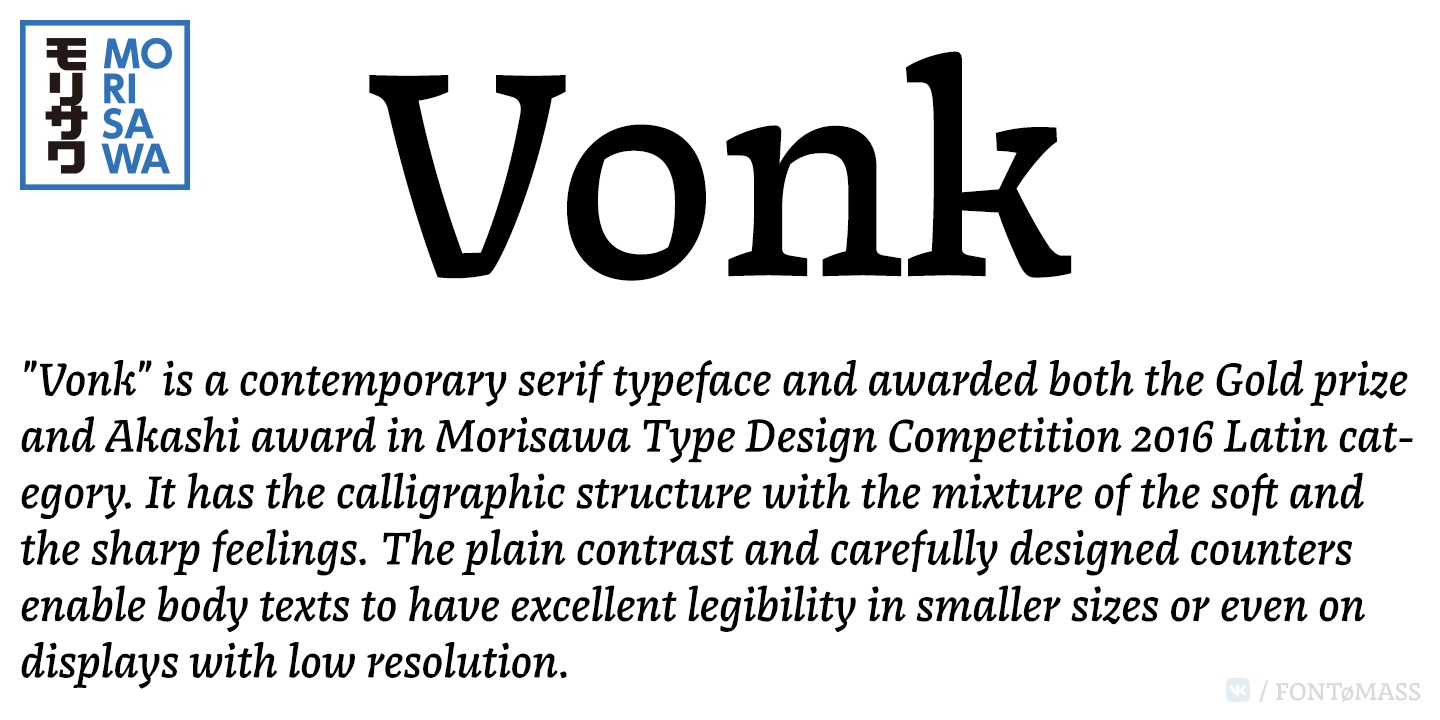
Vonk Font
Vonk Font is perfect for creative agency branding, design studio logos, artistic portfolio headers, innovation consulting signage, startup accelerator marketing, creative workshop materials, inspirational poster design, and dynamic advertising campaigns.
What makes Vonk Font exciting is its electric creativity that captures the spark of innovation and the explosive energy of brilliant ideas coming to life. The font features dynamic letterforms with energetic angles and vibrant character variations that evoke lightning bolts, creative breakthroughs, and the electrifying moment when inspiration strikes. Its distinctive high-energy styling and innovative appeal communicate dynamism, creative power, and transformative thinking, making every message feel charged with creative electricity and ready to ignite revolutionary change.
The Vonk Font family includes regular weight with uppercase and lowercase letters, numerals, punctuation marks, and special characters. Premium versions often feature energetic alternates and dynamic elements that enhance the electric, innovative aesthetic perfect for creative and technology applications.
This electrifying creative typeface brings instant energy and innovative credibility to any inspiration-focused project. Vonk Font Free Download offers exceptional value for creative businesses and innovation-driven organizations seeking to communicate breakthrough thinking, creative excellence, and transformative energy to forward-thinking audiences.
The dynamic character of Vonk Font makes it particularly valuable for advertising agencies, design consultancies, and innovation labs. Its excellent visibility ensures creative messaging and breakthrough concepts capture attention while maintaining the distinctive electric aesthetic that appeals to audiences seeking cutting-edge creative solutions and innovative thinking.
Creative industry professionals appreciate how Vonk Font effortlessly conveys innovative energy and creative dynamism. The font's electric proportions and energetic details create powerful brand materials that establish connections with audiences who value creative breakthrough, innovative solutions, and the transformative power of inspired thinking.
The versatile innovation of this typeface extends to tech startups, creative education, and innovation consulting where electric creativity enhances competitive advantage. Vonk Font Free Download provides creative professionals with an essential tool for developing memorable, energy-driven designs that resonate with audiences who embrace creative innovation, breakthrough thinking, and the electrifying spark of transformative ideas in today's rapidly evolving creative landscape.